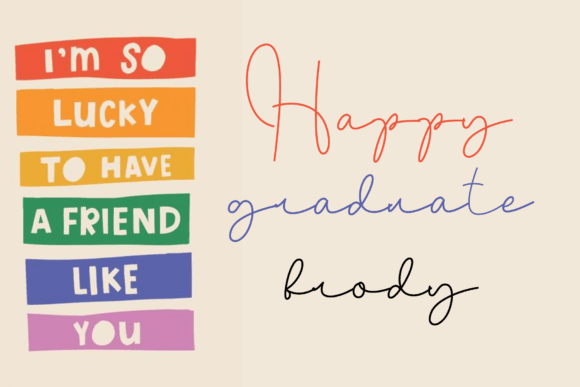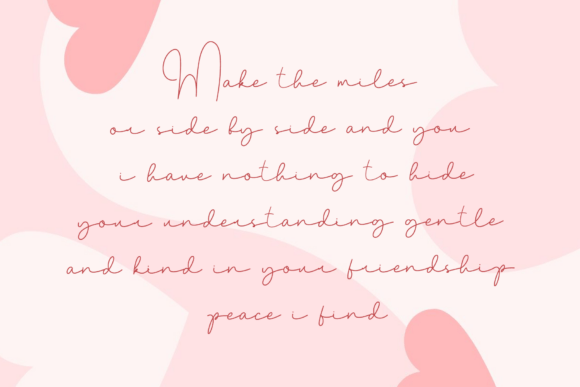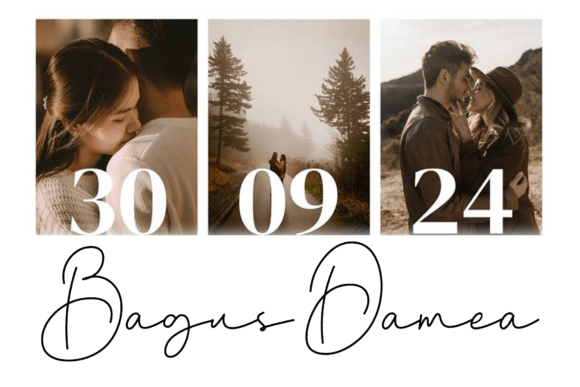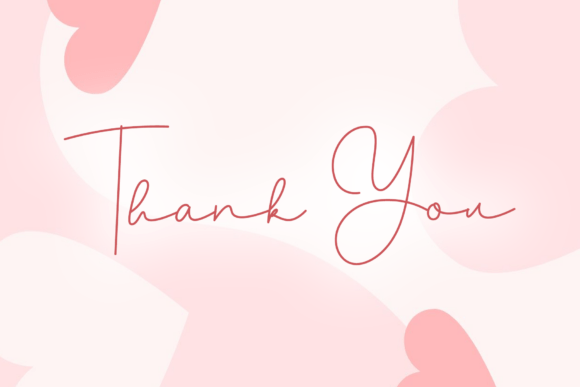
Discover the Charm of Belive You Font: Elevate Your Designs with a Lovely Handwritten Style
Are you on the hunt for a font that adds a personal touch to your designs? Look no further than the Belive You font, a stunning handwritten typeface that is sure to capture the hearts of designers and crafters alike. With its unique and beautiful touch, this font is perfect for creating eye-catching logos, branding, and quotes that stand out from the crowd.
Handwritten fonts have a way of adding a touch of warmth and personality to any design. They evoke feelings of creativity, friendliness, and approachability, making them perfect for a wide range of projects, from branding and advertising to packaging and stationery. The Belive You font is no exception, with its lovely and timeless handwritten style that is sure to bring your designs to life.
What Makes Belive You Font So Special?
So, what sets the Belive You font apart from other handwritten fonts on the market? Here are just a few reasons why this font is a cut above the rest:
- Unique and Beautiful Touch: Every letter in the Belive You font has a unique and beautiful touch that adds a level of sophistication and elegance to your designs.
- Timeless Style: Unlike trendy fonts that quickly go out of style, the Belive You font has a timeless quality that ensures your designs will remain stylish and relevant for years to come.
- Eyecatching Logos and Branding: With its bold and expressive letters, the Belive You font is perfect for creating eye-catching logos and branding that grab attention and leave a lasting impression.
- Perfect for Quotes and Sayings: The Belive You font is also ideal for creating beautiful quotes and sayings that inspire and motivate. Its elegant and cursive style adds a touch of sophistication to any message.
Why Designers and Crafters Love Belive You Font
Designers and crafters love the Belive You font for a variety of reasons. Here are just a few:
- Easy to Read: Despite its elegant and cursive style, the Belive You font is surprisingly easy to read, making it perfect for body text and longer passages.
- Versatile: The Belive You font is incredibly versatile, and can be used for a wide range of projects, from digital designs to print materials.
- High-Quality: The Belive You font is a high-quality typeface that is designed to deliver exceptional results. Its crisp and clean lines ensure that your designs look professional and polished.
How to Use Belive You Font in Your Designs
Using the Belive You font in your designs is easy. Here are a few tips to get you started:
- Pair it with Other Fonts: The Belive You font pairs beautifully with other fonts, making it easy to create stunning font combinations that add depth and interest to your designs.
- Experiment with Colors: The Belive You font looks great in a variety of colors, from bold and bright to soft and pastel. Experiment with different colors to find the perfect look for your design.
- Add Texture and Patterns: To add an extra level of interest to your designs, try adding texture and patterns to your Belive You font. This can be a great way to add depth and visual interest.
In conclusion, the Belive You font is a lovely and timeless handwritten font that is perfect for designers and crafters looking to add a personal touch to their designs. With its unique and beautiful touch, this font is sure to bring your designs to life and leave a lasting impression on your audience. Whether you’re creating eye-catching logos, branding, and quotes, or simply looking for a beautiful font to add to your collection, the Belive You font is an excellent choice.